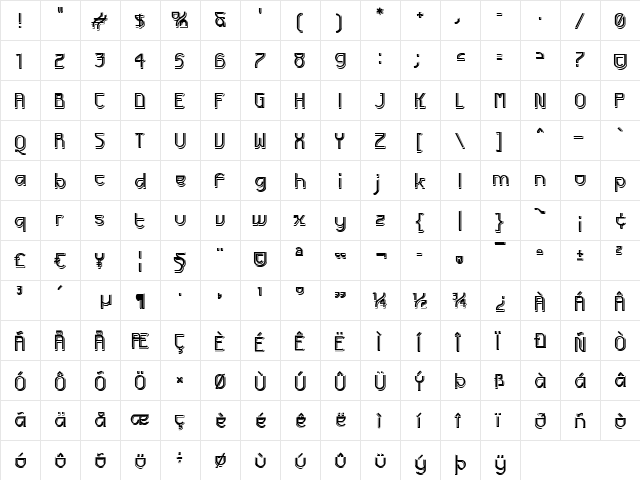
Futurex LX Regular
Design Context for Futurex LX Typeface
Futurex LX channels digital-age aesthetics through its sharp, structured letterforms — ideal for brands that want to signal innovation.
Pro Tip: Use Futurex LX in combination with a neutral sans for body text. Let it define the brand voice in headlines while keeping reading comfortable elsewhere.